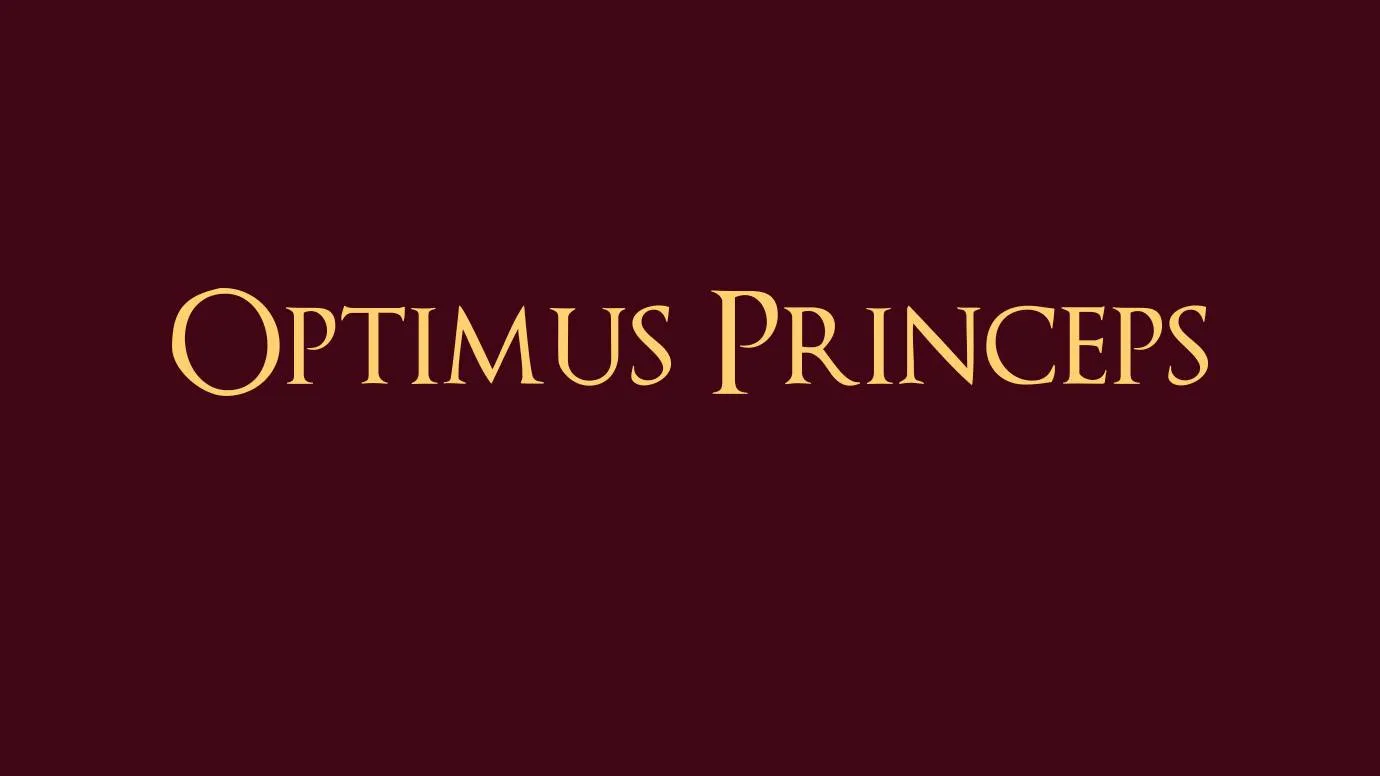
Optimus Princeps Font Free Download
Optimus Princeps Font Family is a stylish and soft-look serif typeface that has beautiful swash characters. This interesting font was designed by a brilliant mind designer named Manfred Klein.
This stylish font is perfect for high-quality text design purposes. It has more than 50 unique glyphs. The generator tool for this serif font is available for use in all personal type design projects.
Optimus Princeps Font
NameOptimus Princeps Font
TypeSerif
DesignerManfred Klein